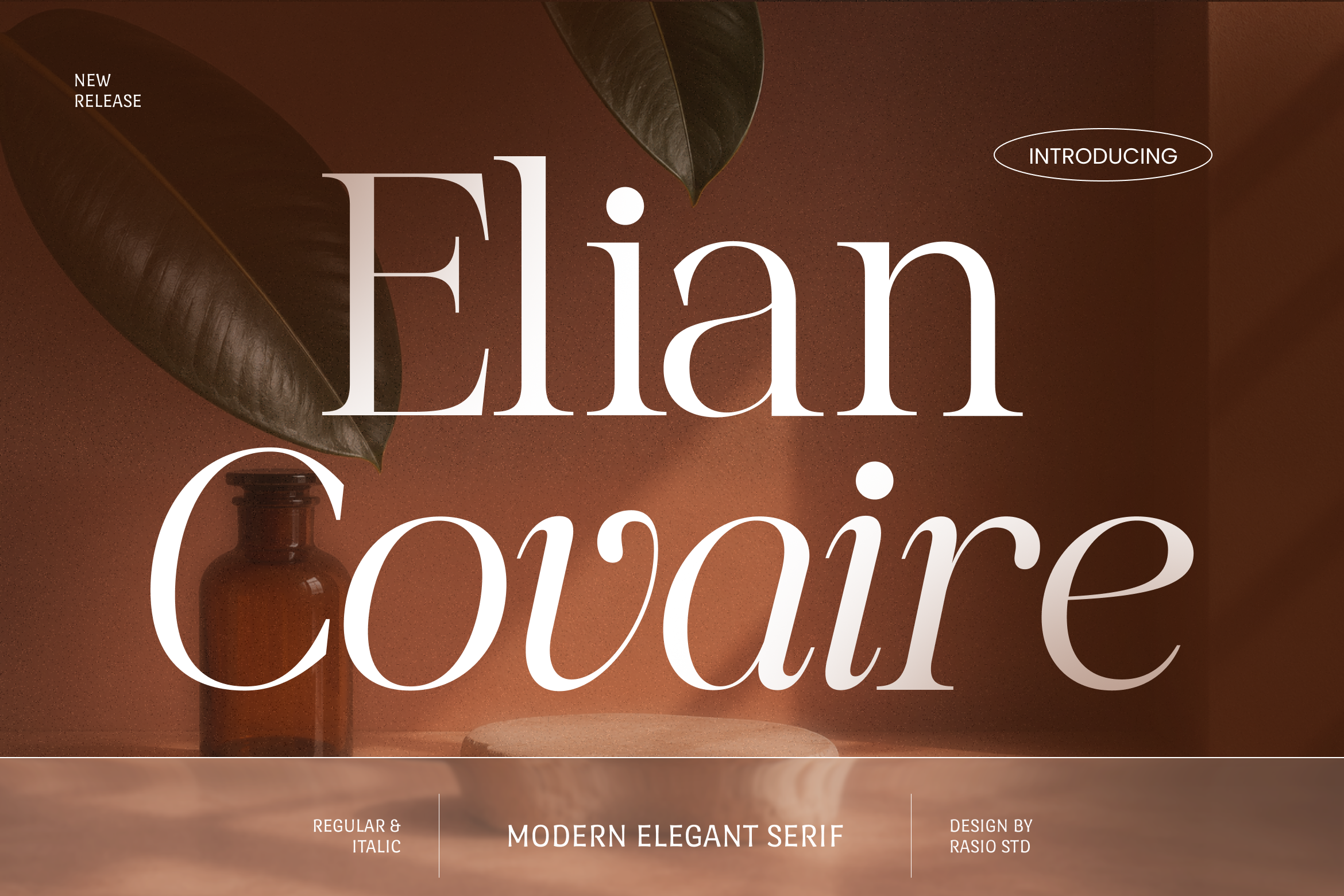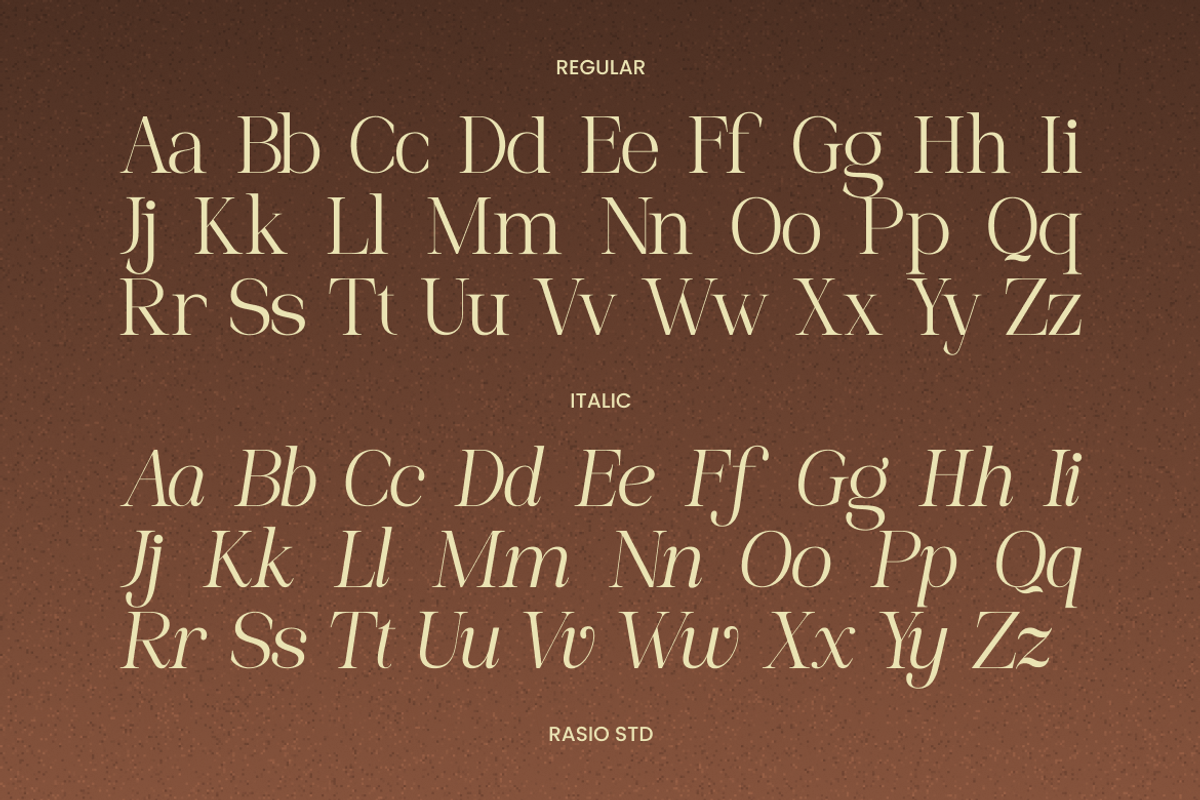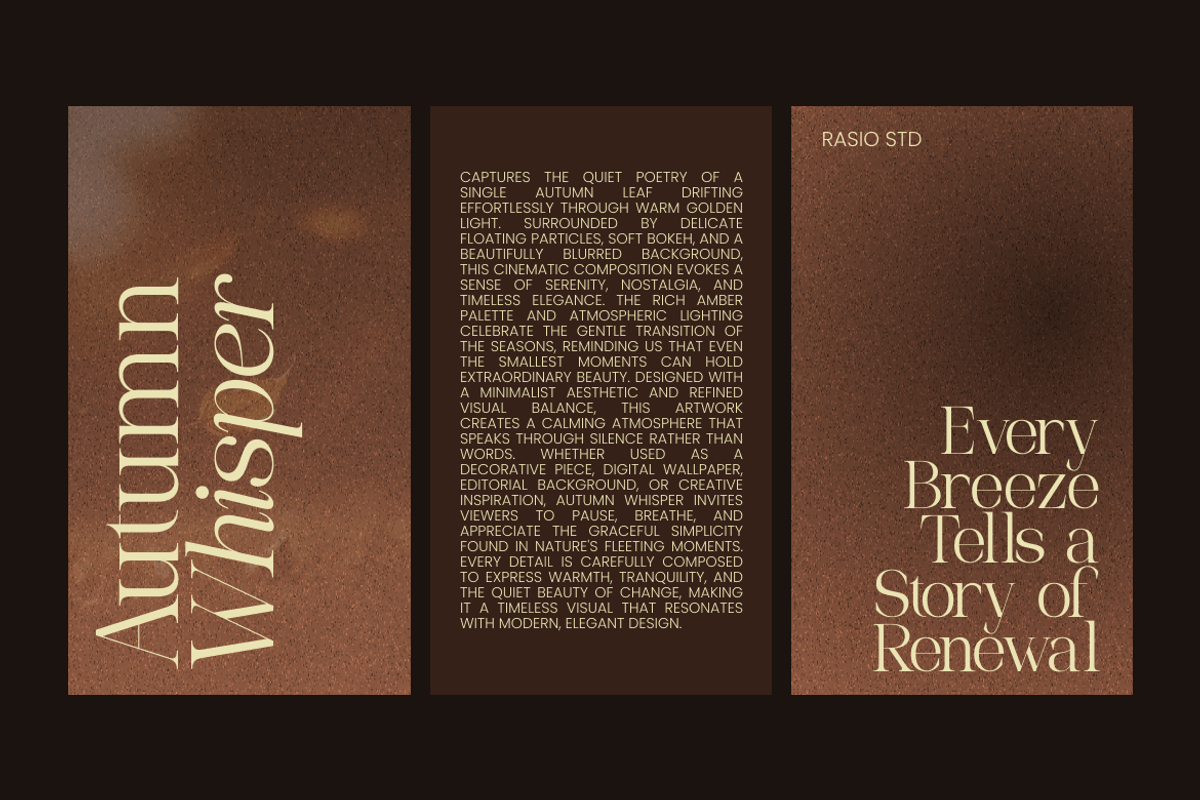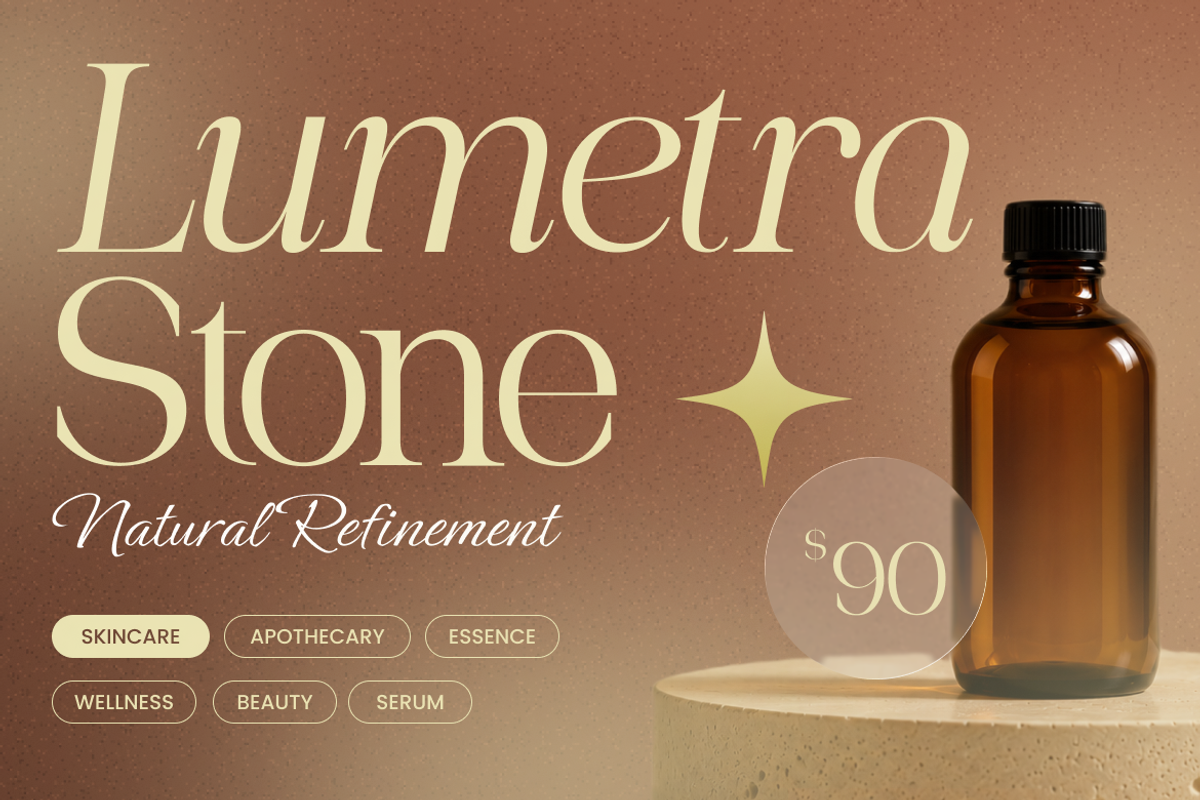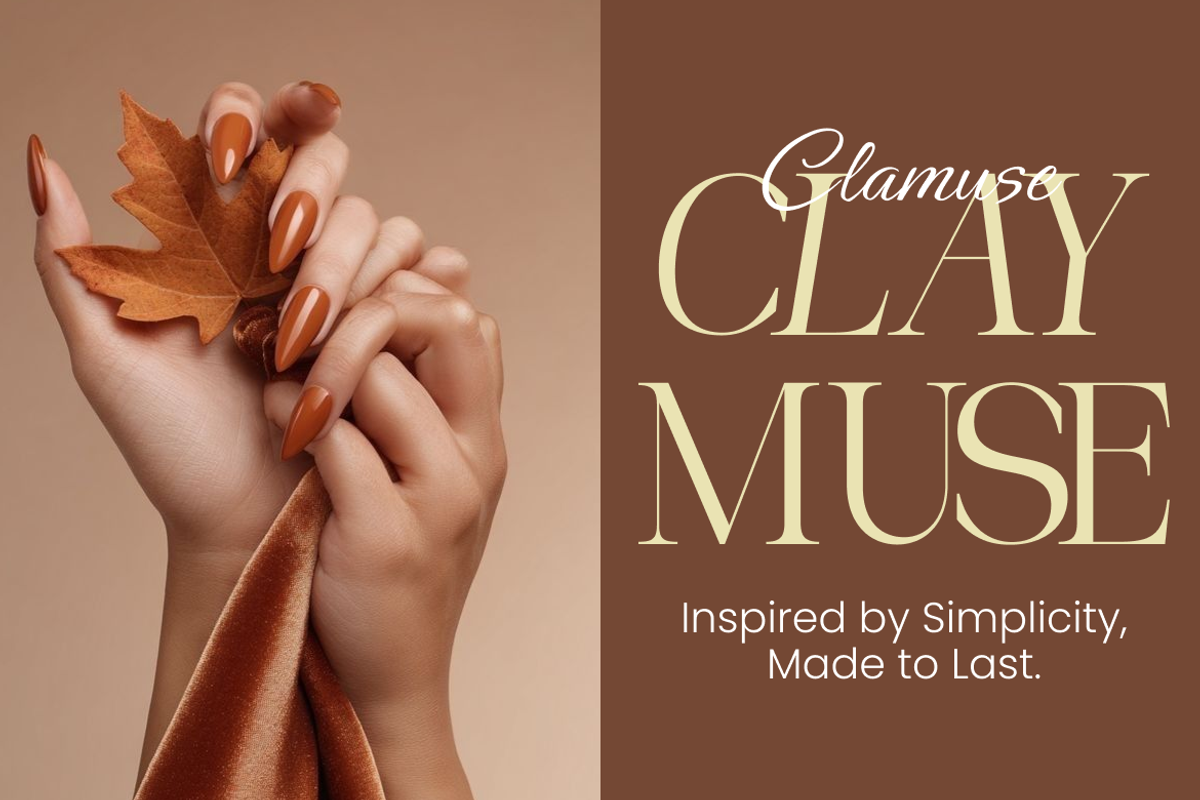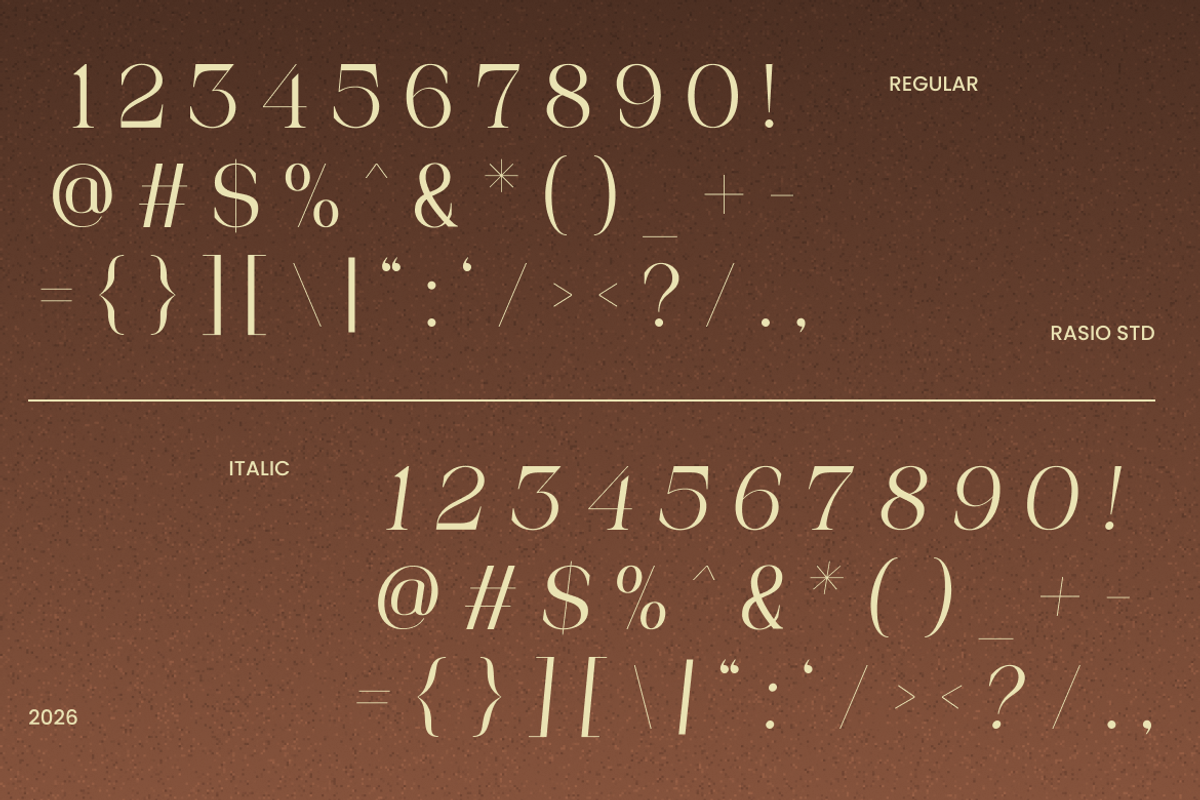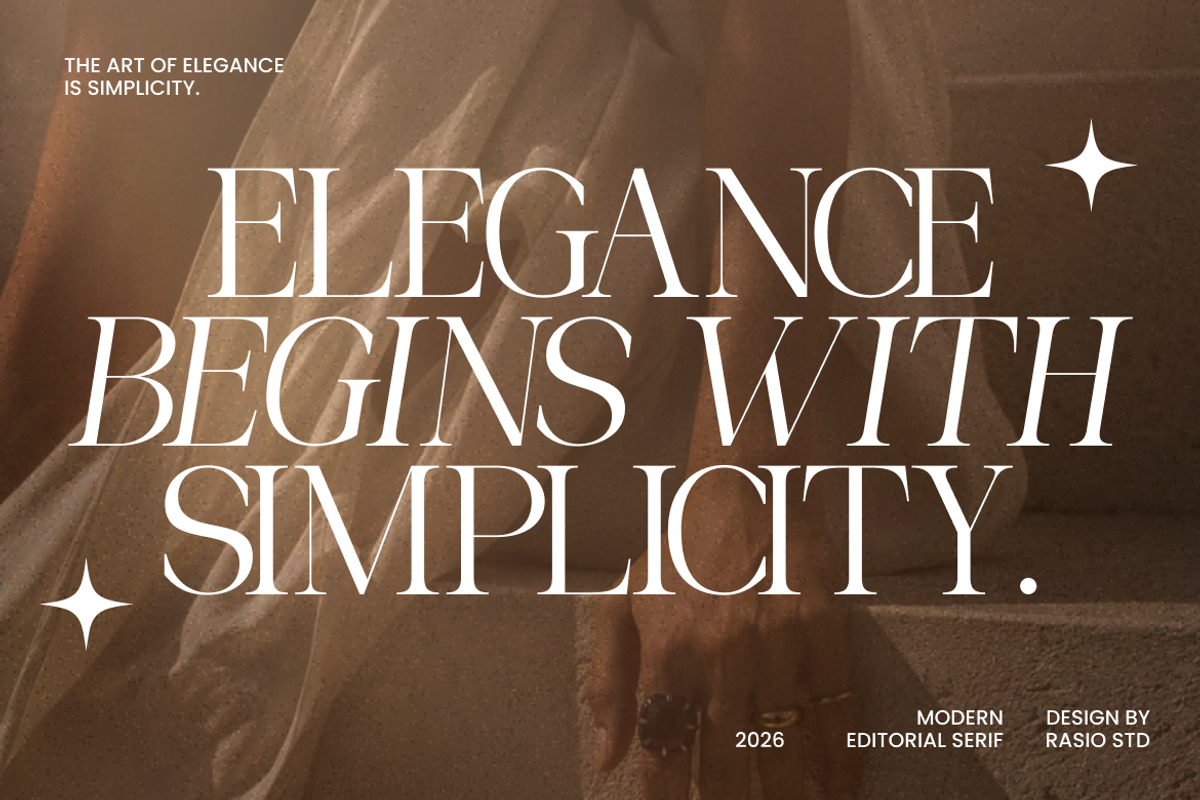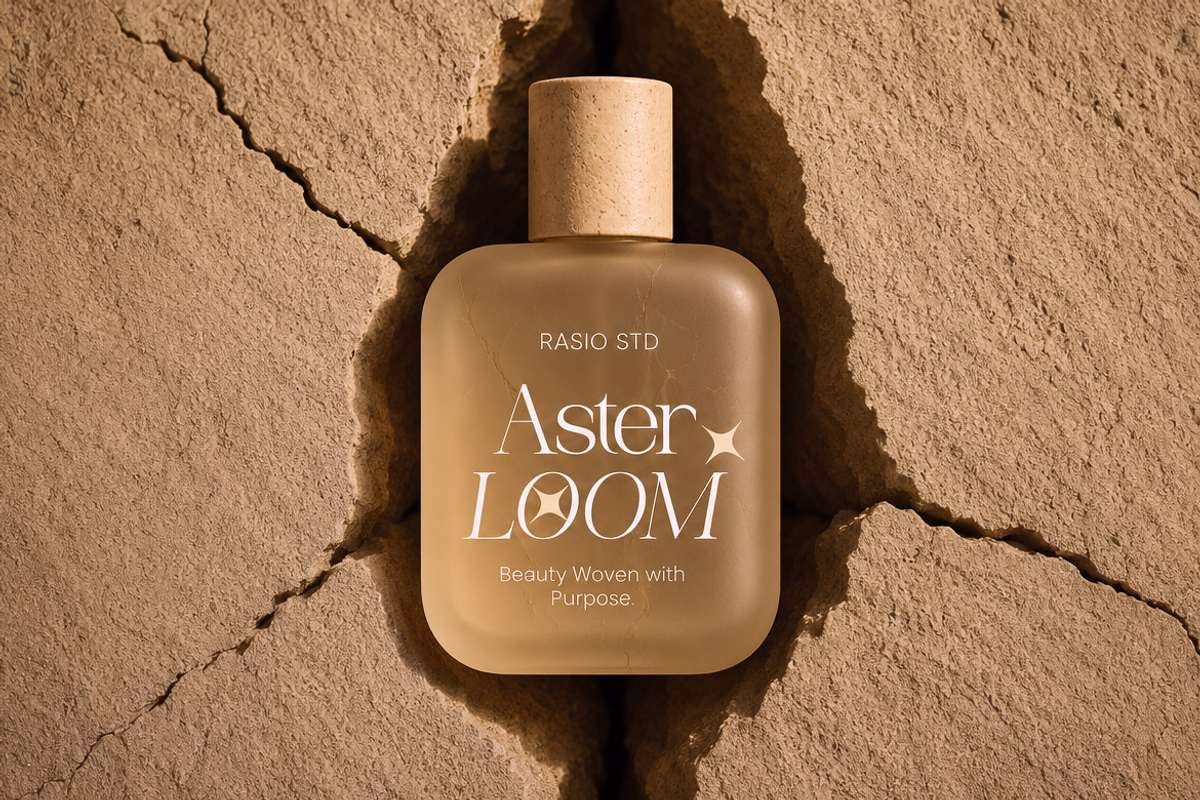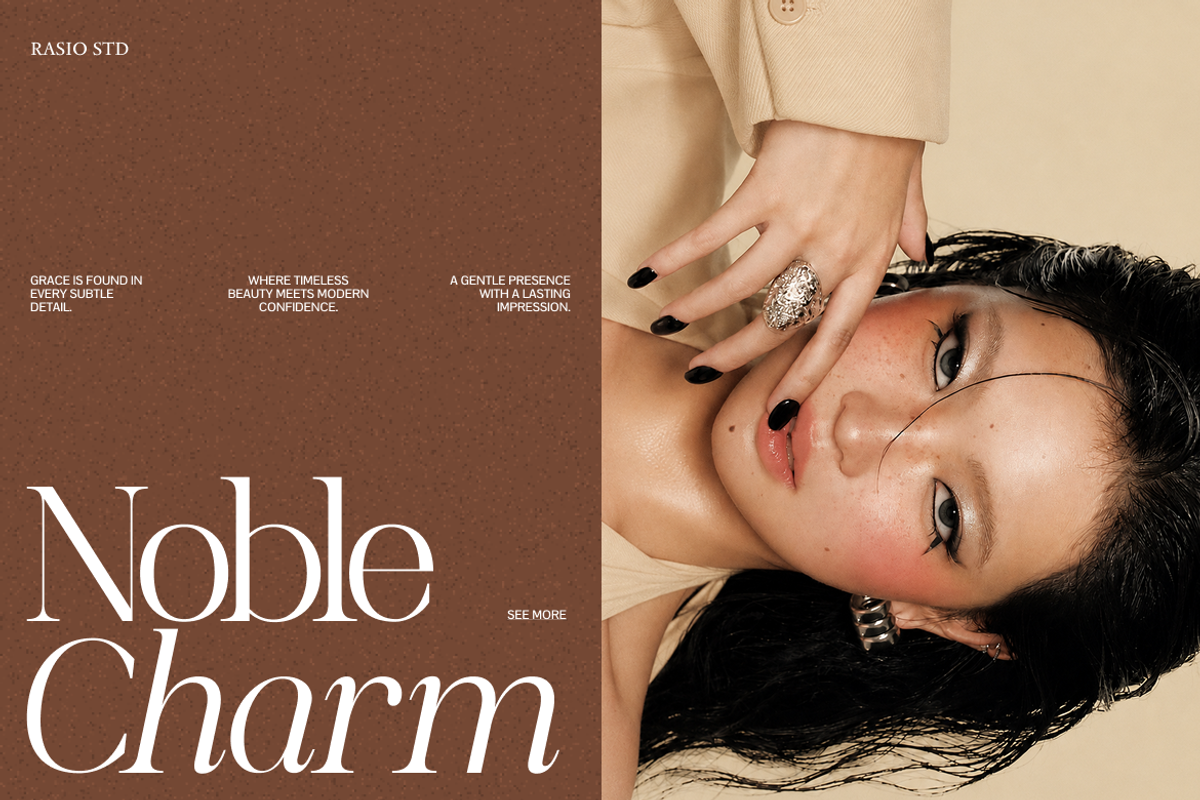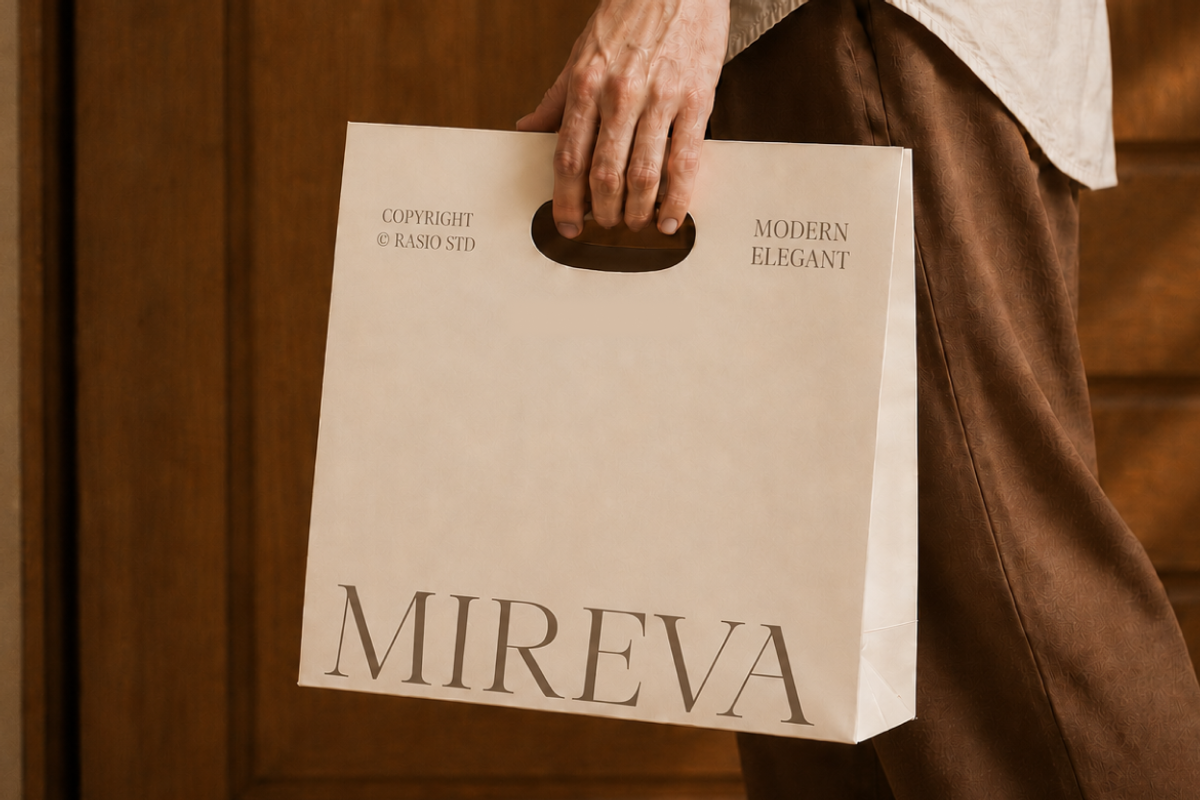
Elian Covaire Modern Elegant Font
Elian Covaire Modern Elegant Font is a refined modern serif typeface built around high-contrast letterforms, slender hairlines, sculpted thick strokes, and distinctive curved terminals. Its character design combines editorial sophistication with subtle decorative details, creating an expressive appearance that remains composed and highly recognizable. The family includes Regular and Italic styles, allowing designers to create contrast between prominent headlines and supporting typography while maintaining a cohesive visual language. The graceful proportions and elegant rhythm make Elian Covaire especially effective when typography needs to become a strong visual element rather than simply provide information.
Elian Covaire is relevant to visual identities that depend on refined typography, graceful proportions, and a premium editorial atmosphere. Its high-contrast structure gives headlines a distinctive presence while the Regular and Italic styles provide useful contrast for titles, supporting phrases, captions, and emphasized text. The typeface can be incorporated into fashion lookbooks, beauty and cosmetics branding, boutique identity systems, magazine covers, editorial spreads, fragrance packaging, jewelry campaigns, invitation suites, luxury product labels, photography portfolios, promotional graphics, and sophisticated artwork.
High-contrast modern serif with elegant thick-and-thin stroke variation
Refined letterforms featuring distinctive curved terminals and graceful transitions
Sophisticated proportions that create a luxurious editorial character
Smooth, expressive curves balanced with sharp serif details for visual contrast
Regular and italic styles for flexible hierarchy and refined typographic pairing
Luxury fashion identities requiring an elegant editorial presence
Beauty, fragrance, and cosmetic branding with refined typography
Magazine covers, fashion editorials, and sophisticated publication layouts
Premium packaging for perfumes, skincare, jewelry, and boutique products
Wedding invitations, menus, and stationery with a graceful formal character
Supports numerals, punctuation, and extensive symbol set